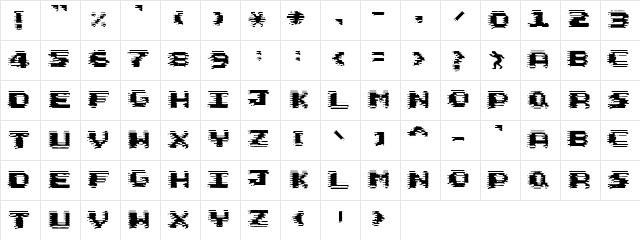
Circuit Scraping Normal
Design Context for Circuit Scraping Typeface
Circuit Scraping is a composed and adaptable typeface that performs quietly and consistently across a wide range of design contexts.